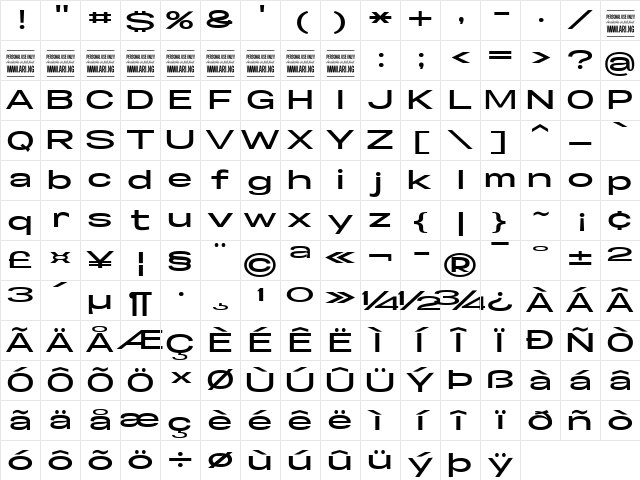
Specify PERSONAL Extraexpanded Bold
Foundry: M￿ Greb￿
Designer: M￿ Greb￿
Design Context for Specify PERSONAL Extraexpanded
Specify PERSONAL Extraexpanded is a composed and adaptable typeface that performs quietly and consistently across a wide range of design contexts. Its bold stroke weight gives it real presence on the page.